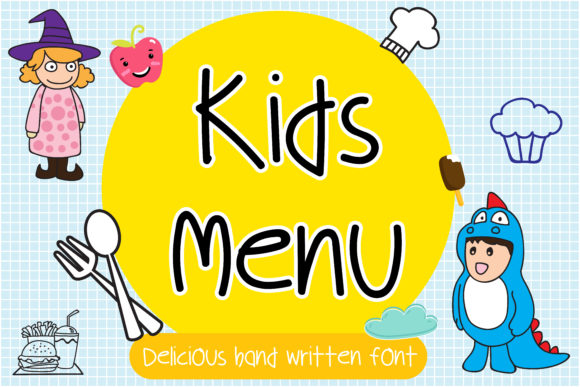
Journey into a world of captivating typography with Kids Menu Font, a whimsical masterpiece that exudes charm and uniqueness. This enchanting script font, meticulously crafted by the talented vividdiy8, is an ode to the playful spirit of childhood. Immerse yourself in its playful embrace and watch as your creative visions transform into extraordinary realities.
With Kids Menu Font as your creative companion, turn ordinary designs into extraordinary adventures. Its enchanting strokes, reminiscent of a child's carefree scribbles, spark a sense of nostalgia and wonder. Whether you're crafting personalized invitations, designing whimsical posters, or adding a touch of whimsy to your social media posts, Kids Menu Font is the perfect choice for injecting a sense of playful elegance.
Let your imagination soar as you explore the boundless possibilities of Kids Menu Font. Its childlike innocence and playful nature make it an ideal choice for projects aimed at capturing the hearts and minds of young audiences. From vibrant children's books to captivating school projects, Kids Menu Font breathes life into your words, transforming them into visual masterpieces that ignite imaginations and leave a lasting impression.
With Kids Menu Font, you're not just downloading a font; you're embarking on a journey of creativity and self-expression. Its ability to evoke a sense of nostalgia, charm, and boundless imagination makes it a must-have tool for designers, educators, and anyone who seeks to add a touch of magic to their creative endeavors. So, embrace the playful spirit of Kids Menu Font and embark on a creative adventure that knows no bounds.